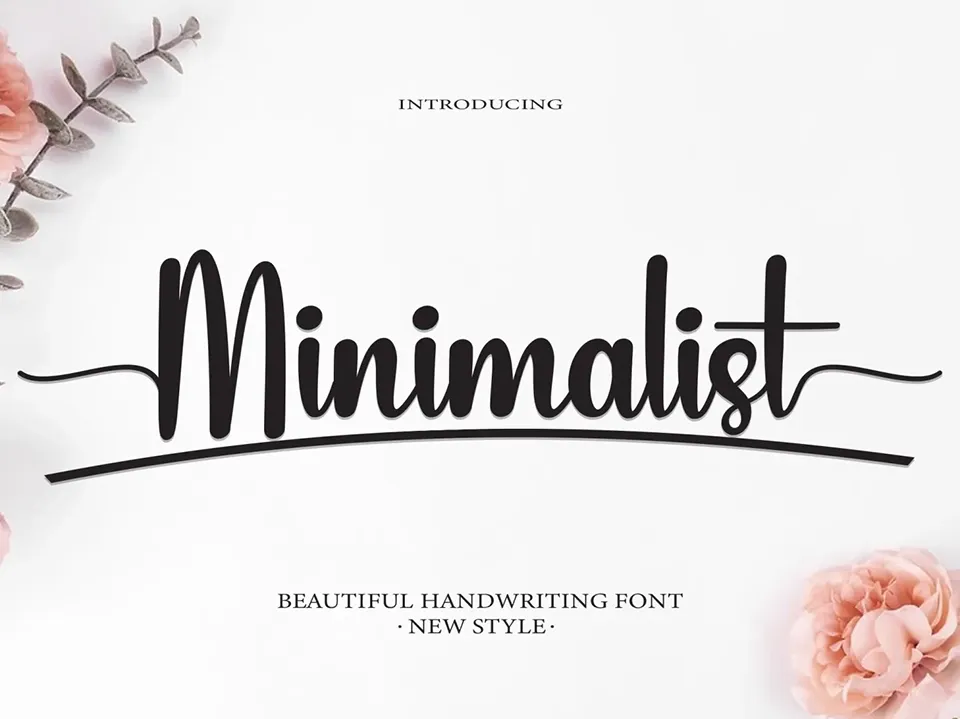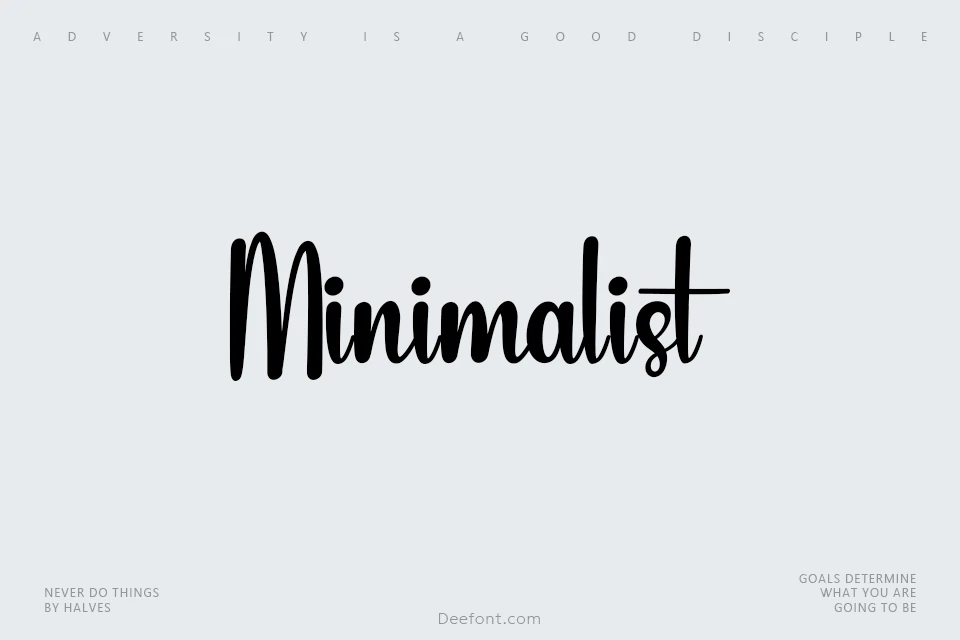
Minimalist Font
Minimalist Font is a beautifully crafted handwriting typeface that exudes elegance and simplicity. Designed with smooth curves and clean lines, it offers a modern yet timeless aesthetic, perfect for adding a personal touch to your creative projects. Whether you’re working on logos, invitations, social media graphics, or branding materials, Minimalist Font delivers versatility and sophistication. Its flowing strokes and balanced design make it ideal for showcasing creativity while maintaining readability. Elevate your designs with this new style that seamlessly combines charm and functionality, creating an unforgettable impression. Minimalist Font is your go-to choice for effortless beauty in typography.